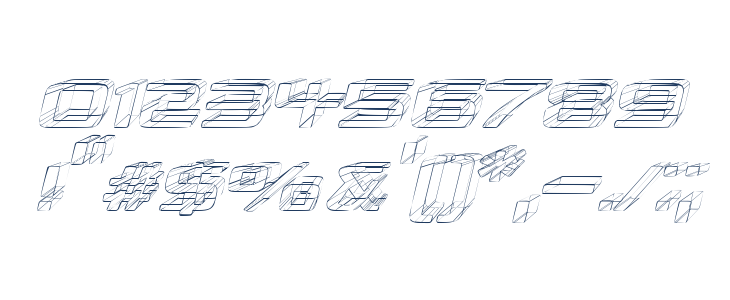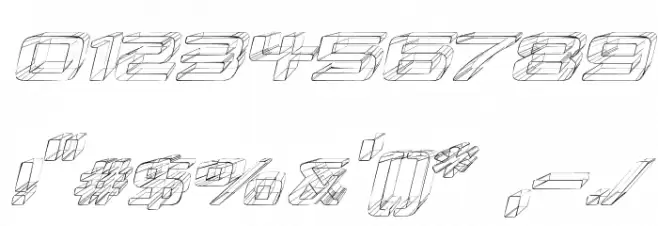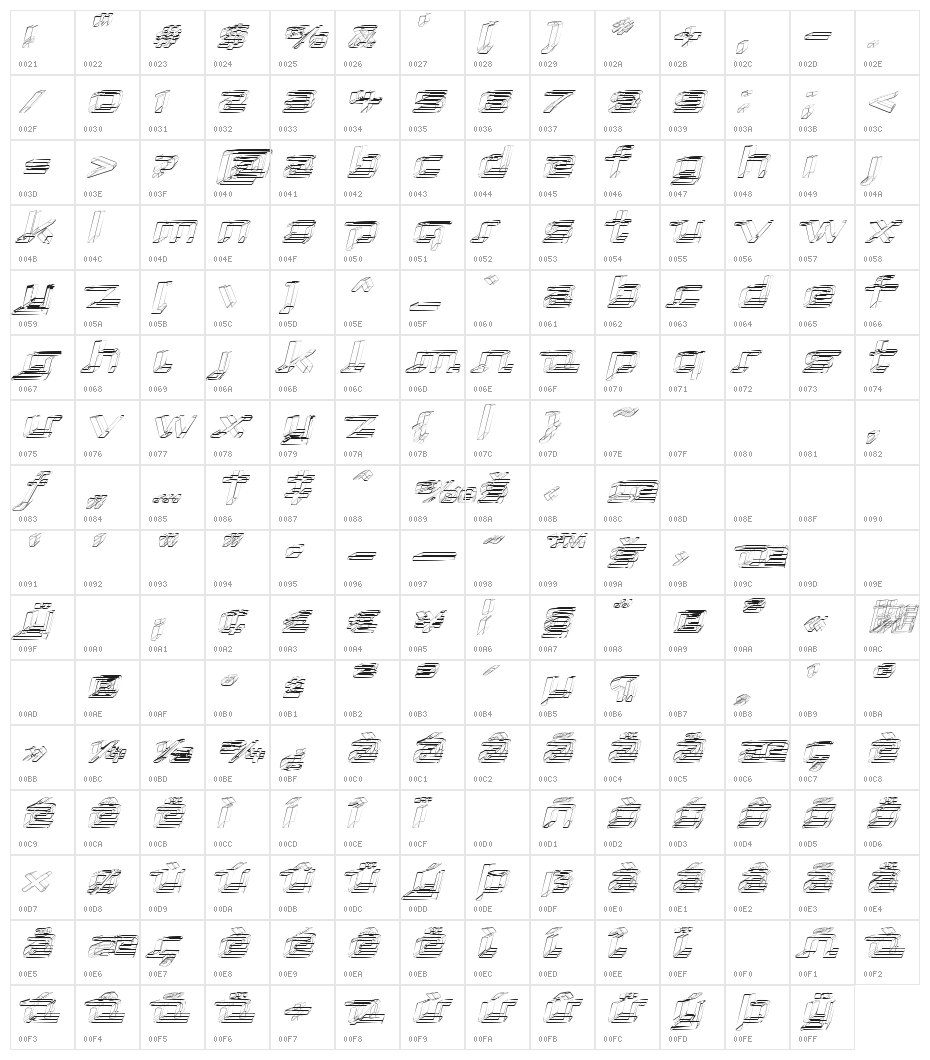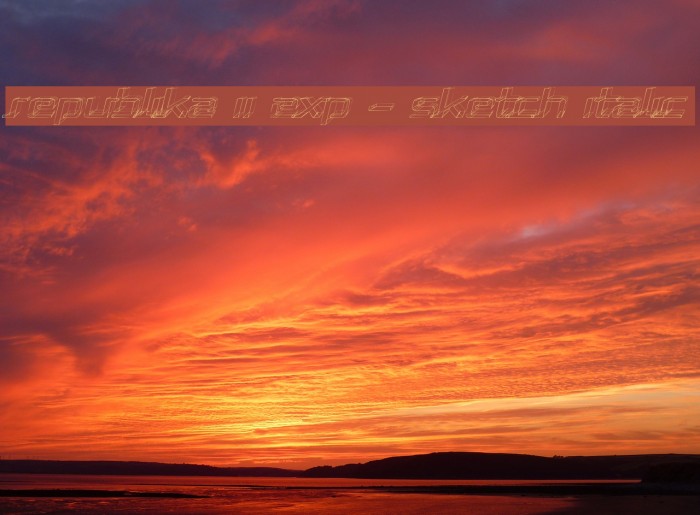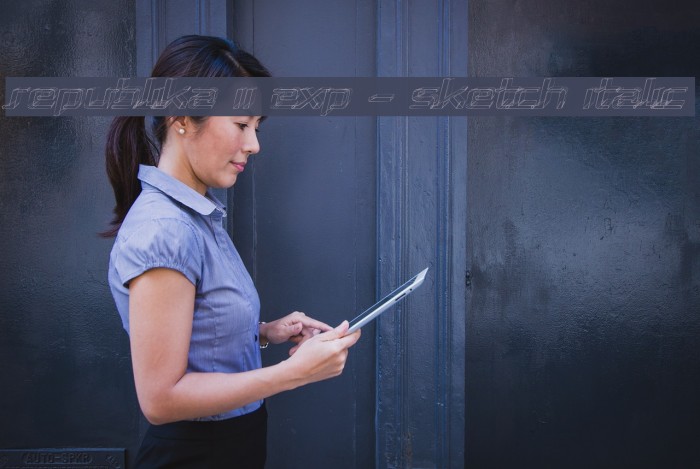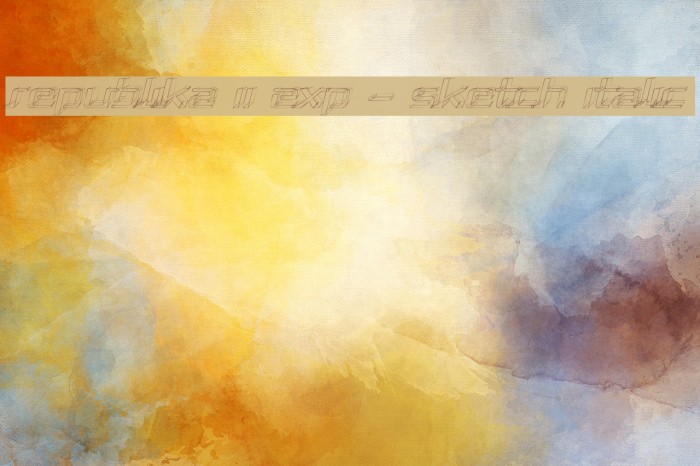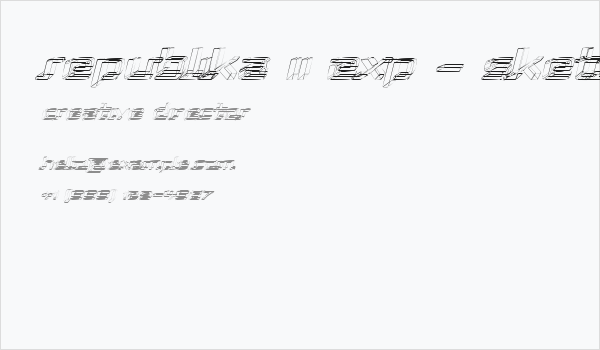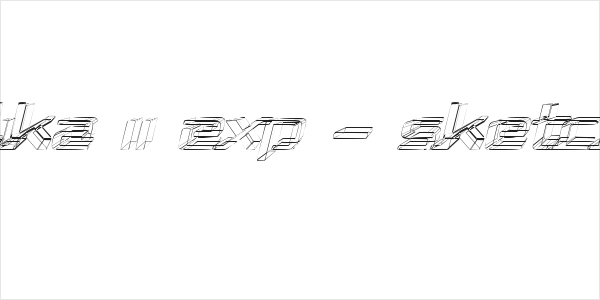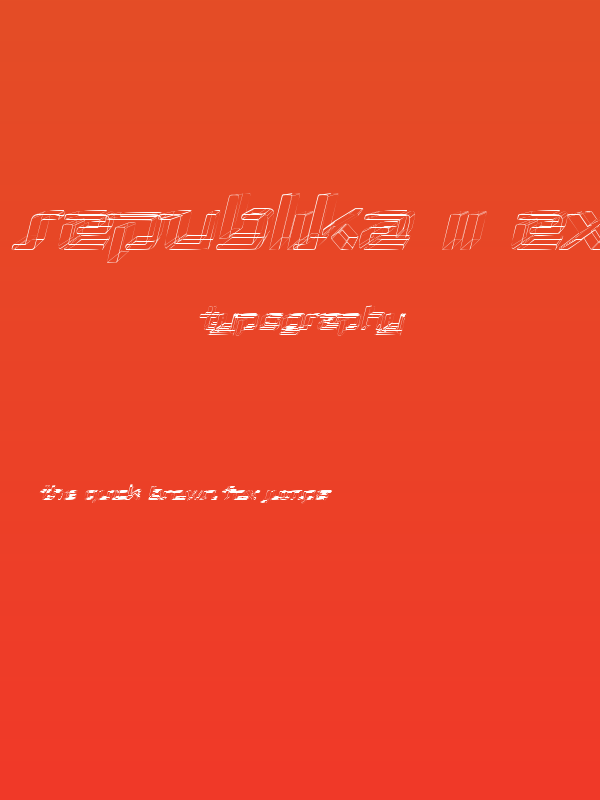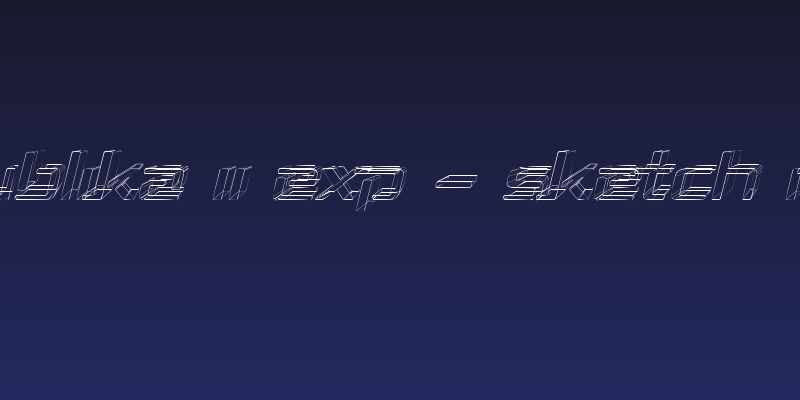
Republika II Exp - Sketch Italic Font
Republika II Exp - Sketch Italic Description
This font features a dynamic and futuristic design with a sketch-like appearance. The characters are italicized, giving them a sense of motion and speed. The lines are bold and angular, creating a three-dimensional effect that is both striking and modern. The uppercase and lowercase letters maintain a consistent style, with sharp edges and a geometric structure. Numbers and special characters are designed to match the overall aesthetic, ensuring uniformity across all text. This font's unique style makes it ideal for projects that require a bold and innovative look.
| Overall Style | Futuristic, Modern |
| Proposed Projects | Ideal for technology branding, futuristic posters, video game titles, and sci-fi themed projects. |